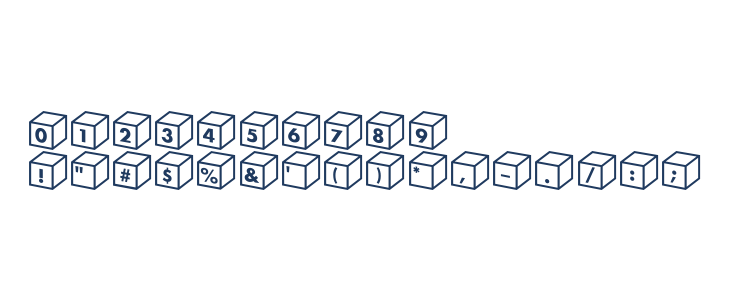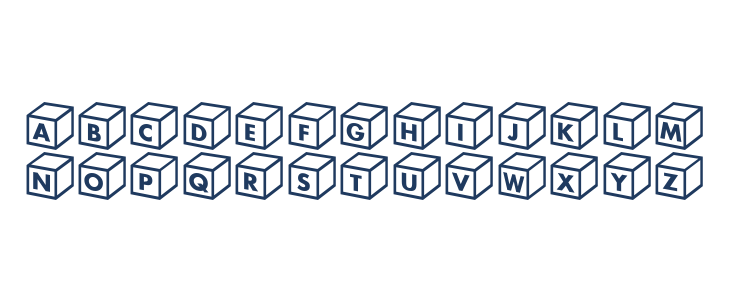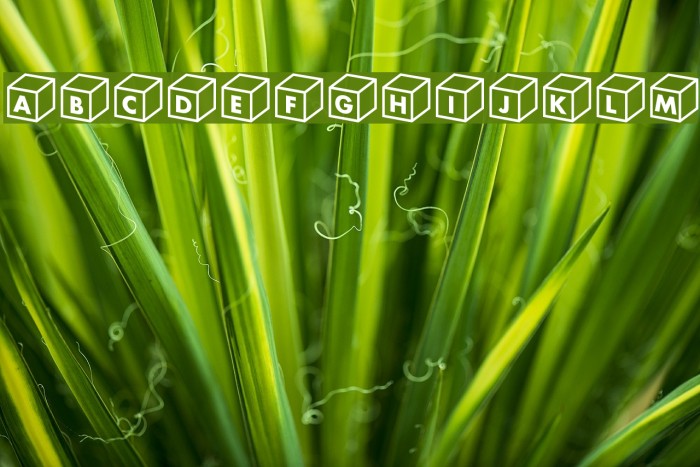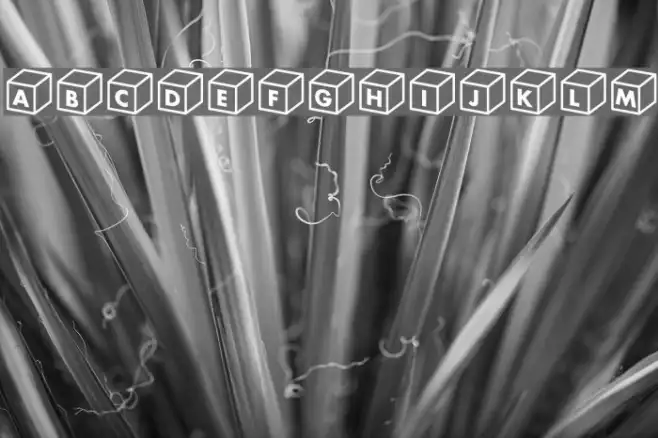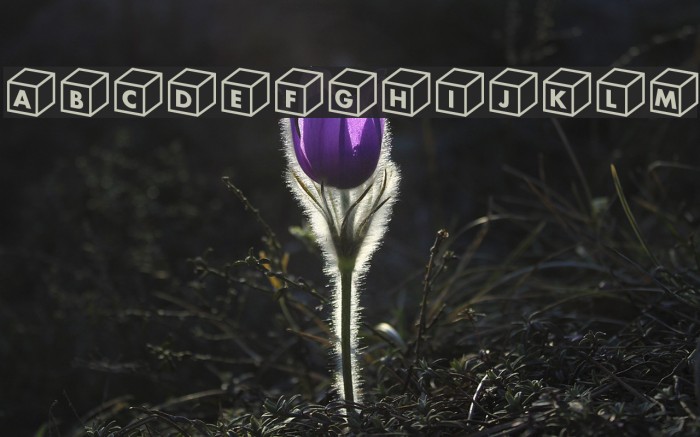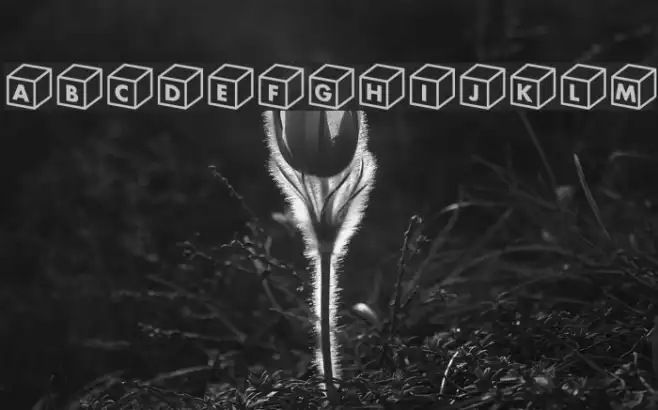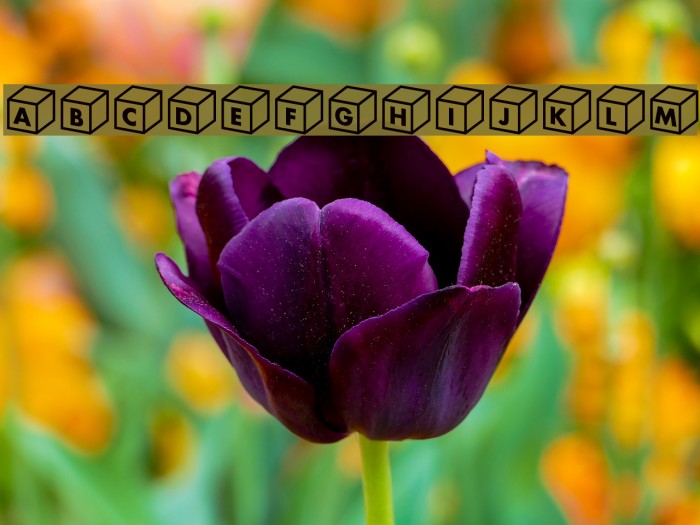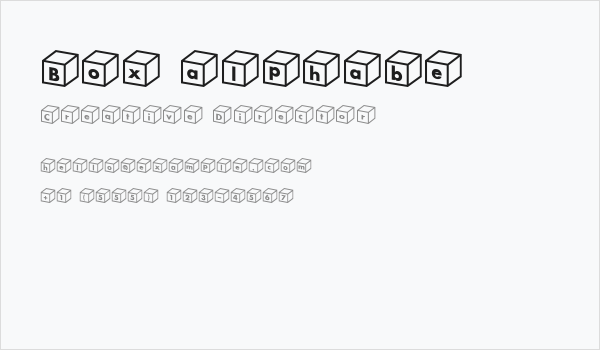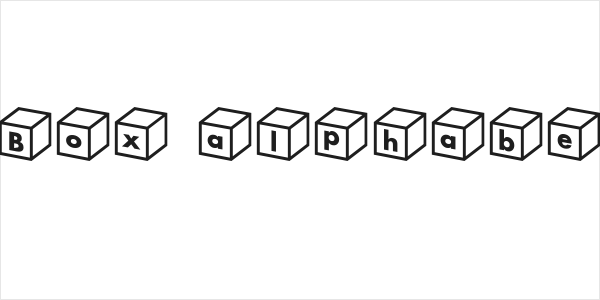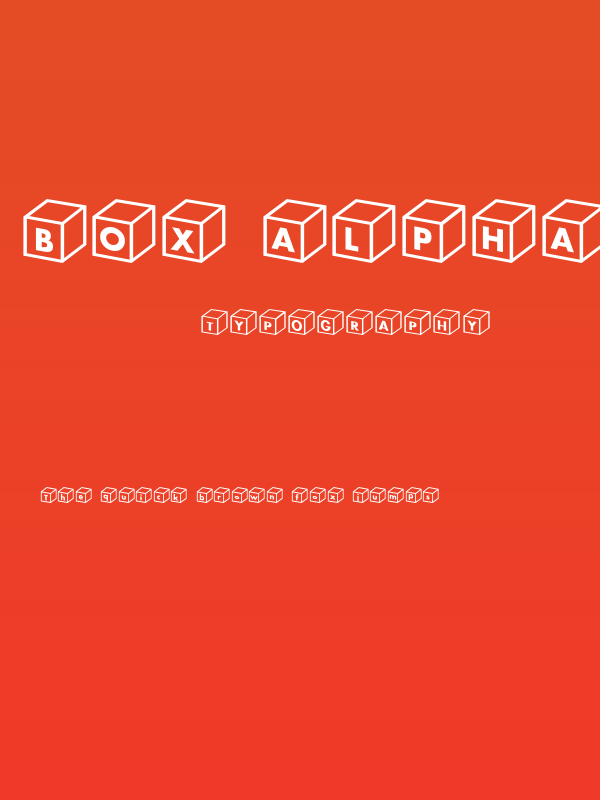
Box alphabe Font
Box alphabe Description
This font features a unique and playful design where each character is encapsulated within a three-dimensional cube. The letters and numbers are bold and clear, making them stand out against the geometric backdrop. The style is reminiscent of building blocks, offering a sense of depth and dimension. The characters are evenly spaced within their cubes, ensuring readability while maintaining a consistent visual theme. This font is particularly eye-catching and can add a whimsical touch to any project.
| Proposed Projects | Ideal for children's books, educational materials, playful branding, or any project needing a fun and engaging typeface. |